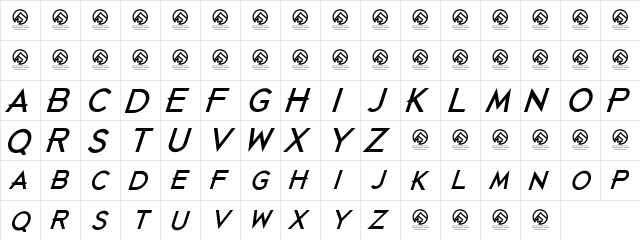
Just Die Already Black Black Italic
Design Context for Just Die Already Black Typeface
Just Die Already Black is a composed and adaptable typeface that performs quietly and consistently across a wide range of design contexts. Its italic angle brings a sense of urgency and motion to the letterforms.
Pro Tip: Use Just Die Already Black for emphasis, pull quotes, and subheadings where its slanted energy can add rhythm to the layout.